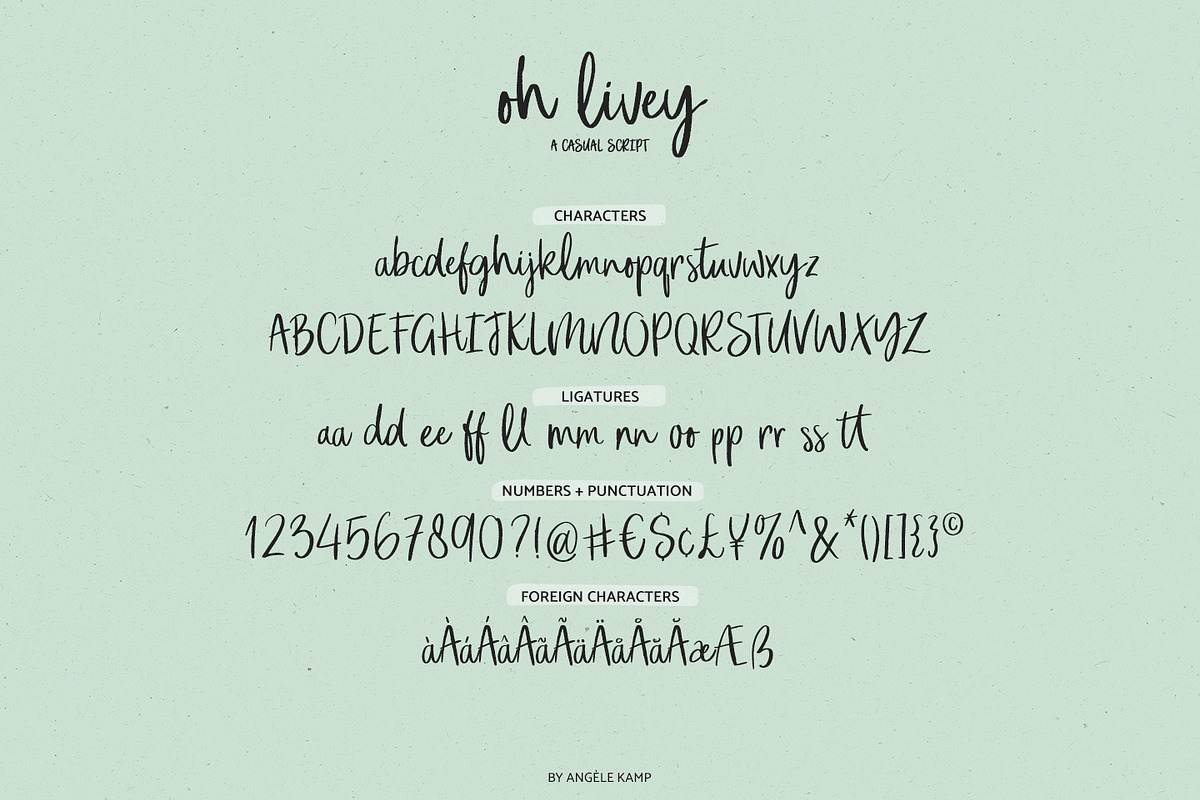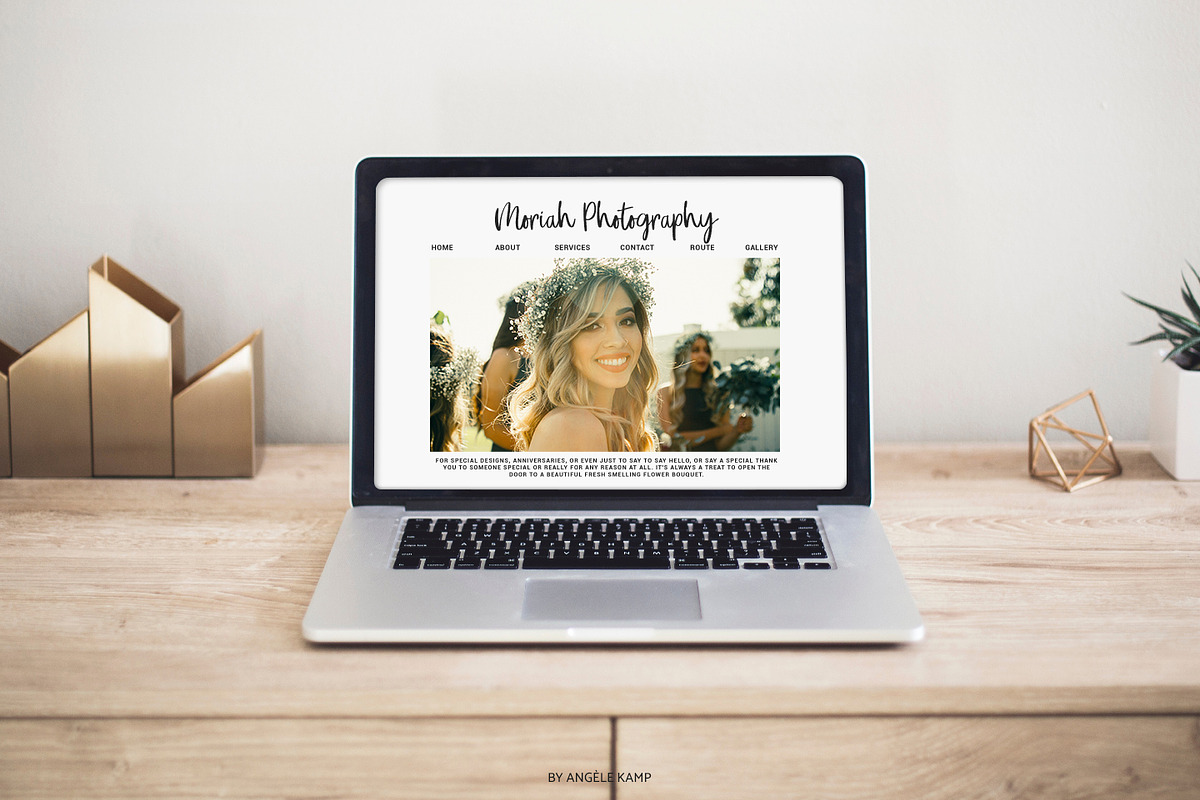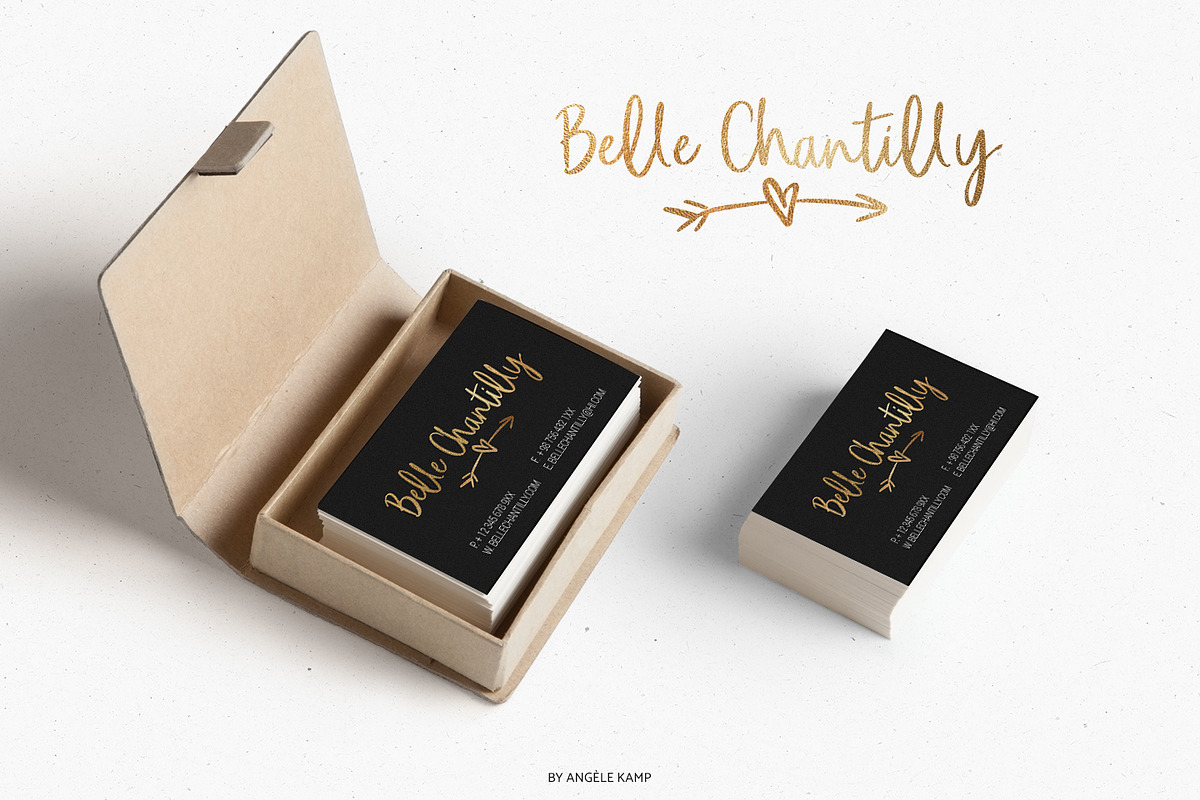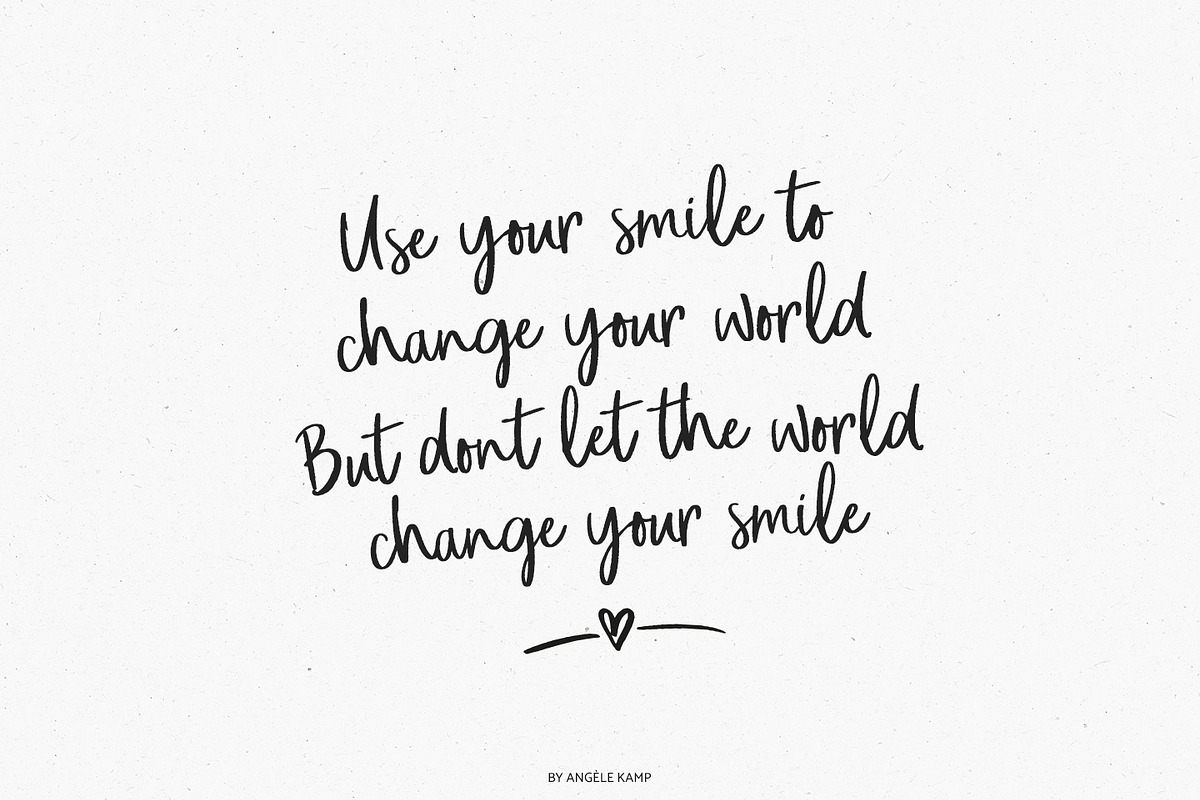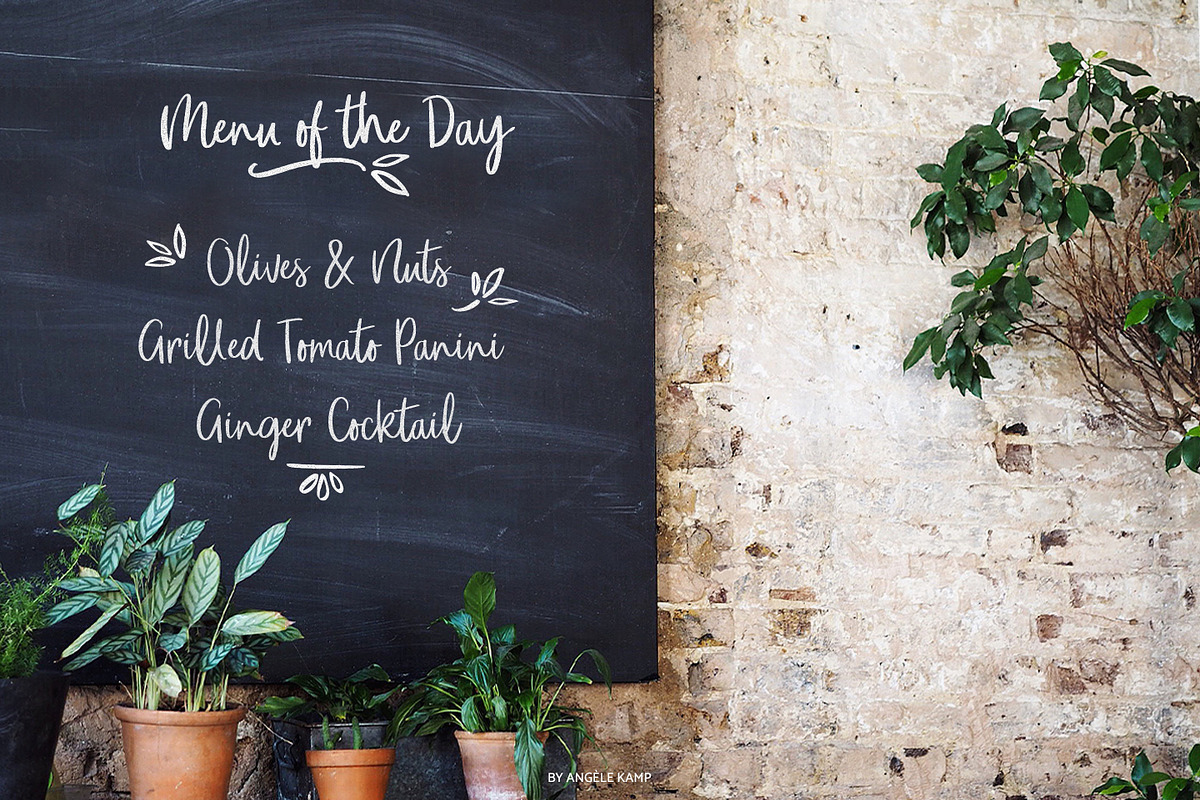
Oh Livey Font is a brush script font with a fun, modern vibe and an authentic handwritten feel. Perfect for quotes, websites, wedding invitations, thank-you cards, logos, and more, it includes ligatures and extra clipart to make designing easier and more enjoyable.